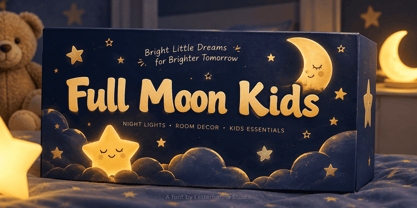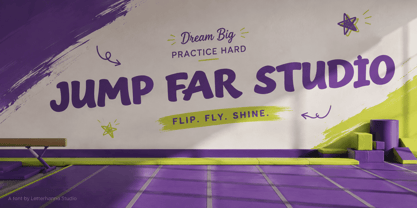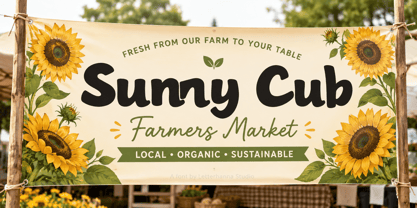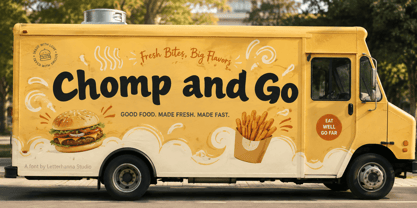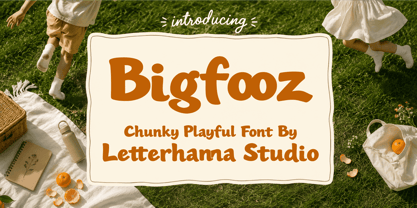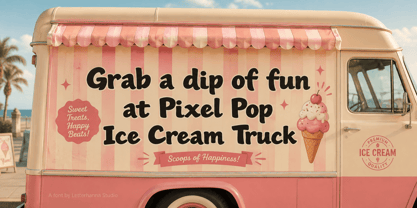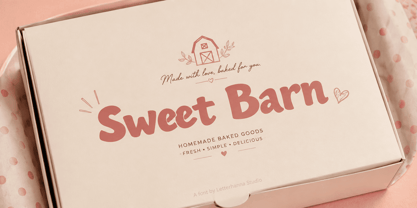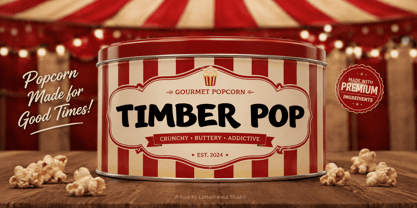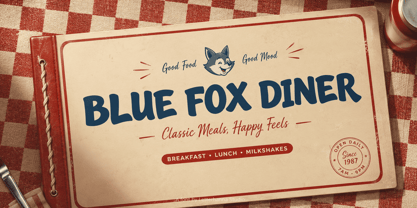
Bigfooz
You open your font folder for the tenth time this week. Nothing feels right. Every "cute" option you've downloaded looks either too thin to matter or too messy to read.
That's the quiet frustration behind most playful design projects. You want something bold, something with personality, but most playful fonts fall apart the moment you scale them up on a poster or a product label.
Bigfooz was built to fix exactly that.
It's a bold, chunky font with thick marker-style strokes and a bouncy, hand-drawn baseline. Every letter feels like it was scribbled with confidence — rounded terminals, playful dots on the i and j, and curled descenders that give the whole set a toy-like charm.
Here's where things usually get confusing. Marketplaces are full of fonts labeled "kids font" or "bold display font," and after scrolling through fifty near-identical bubble scripts, they all start to blur together. How do you know which one actually holds up in real use?
The answer is legibility under pressure. A true chunky font shouldn't lose its shape when it's shrunk onto a sticker or blown up on a storefront sign. Bigfooz keeps its thick, blocky uppercase and rounded lowercase readable at almost any size, which is rarer than it sounds.
And here's the part that tends to surprise people: a font this thick and playful can still feel controlled. Nothing about Bigfooz looks accidental. The weight is consistent, the curves are deliberate, and the overall rhythm feels handmade rather than generated by a template.
That combination — heavy visual presence plus genuine craftsmanship — is what makes it work for kids brands, party businesses, snack packaging, and anything that needs to feel fun without feeling flimsy.
If your project needs energy on the page, Bigfooz brings it instantly. Drop it into a logo, a poster headline, or a product label, and the personality does the work for you.